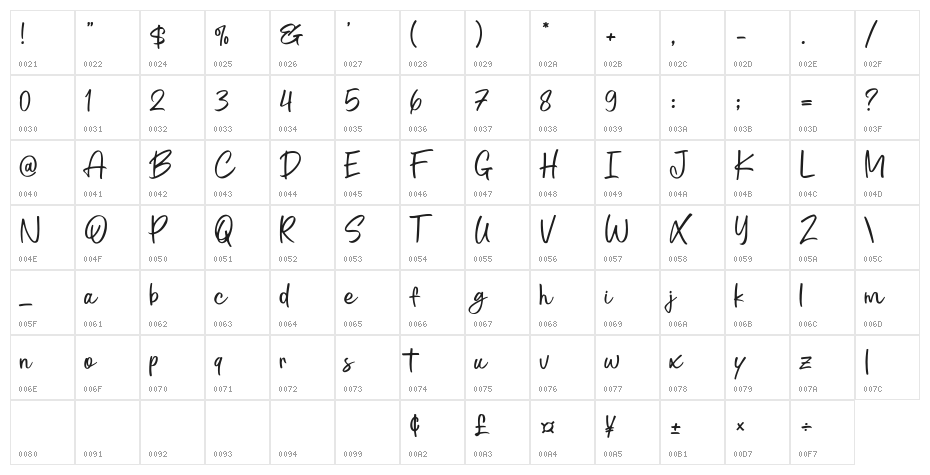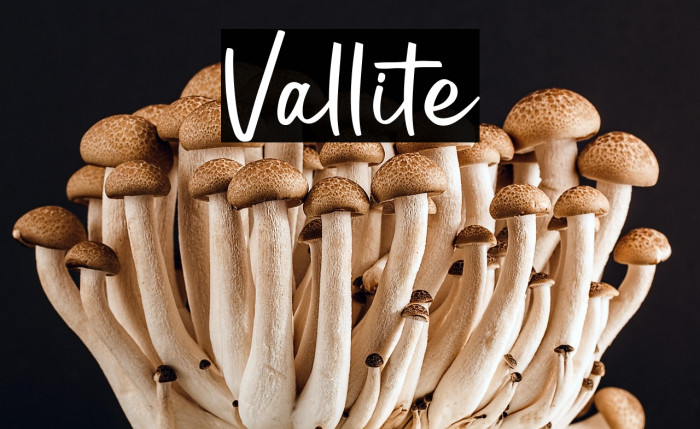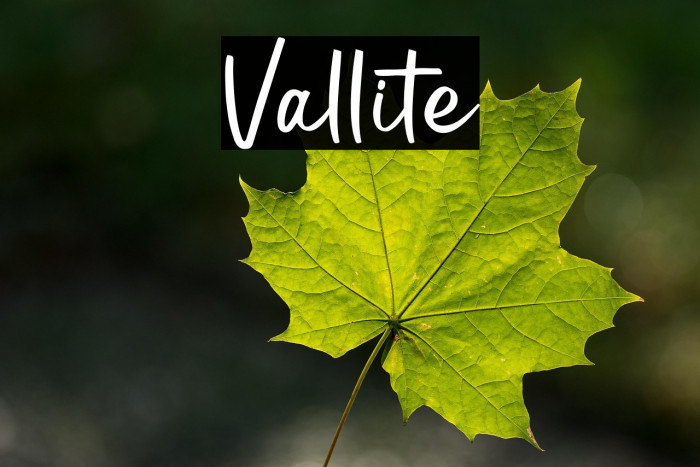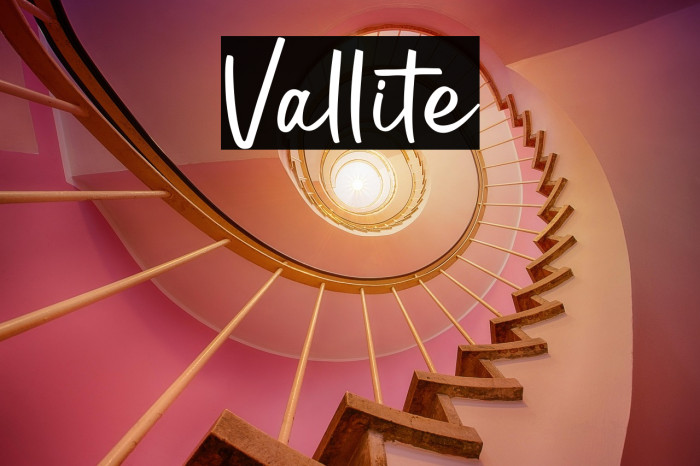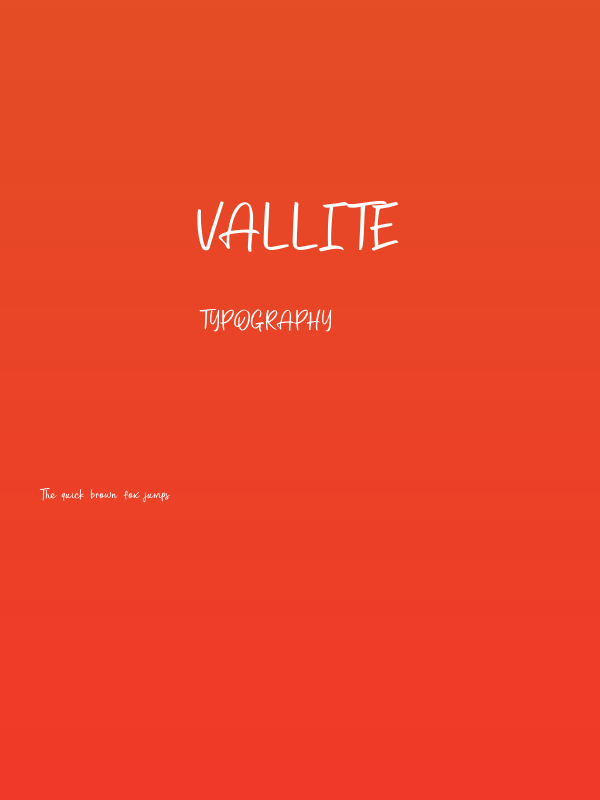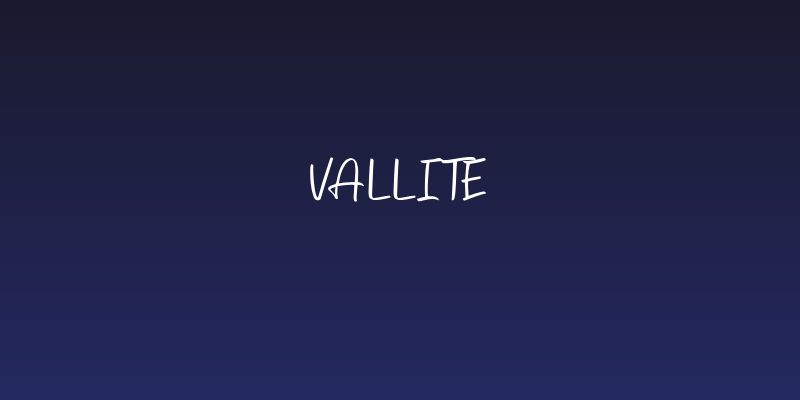
Vallite Font
Vallite Description
This font features a handwritten, casual style with a playful and energetic appearance. The letters are slightly slanted, giving it a dynamic flow. The strokes are smooth and consistent, with a medium thickness that provides good readability. The uppercase letters are bold and prominent, while the lowercase letters maintain a friendly and approachable feel. The numbers and special characters are well-integrated, maintaining the overall aesthetic. This font is versatile, suitable for projects that require a personal touch or a creative flair.
| Overall Style | Casual, Playful |
| Use Case | Headlines, Logos, Invitations |
| Proposed Projects | Ideal for greeting cards, invitations, personal branding, and creative projects. |